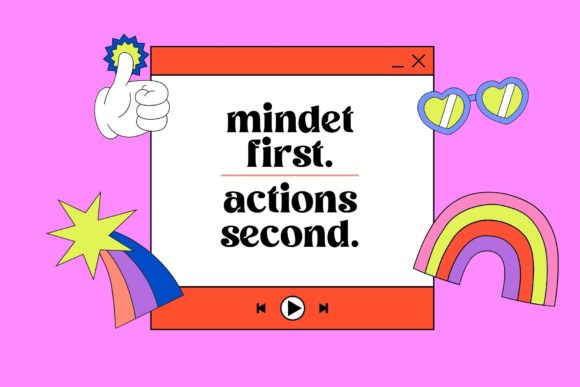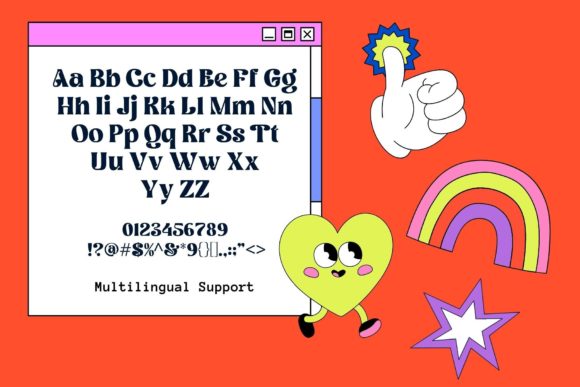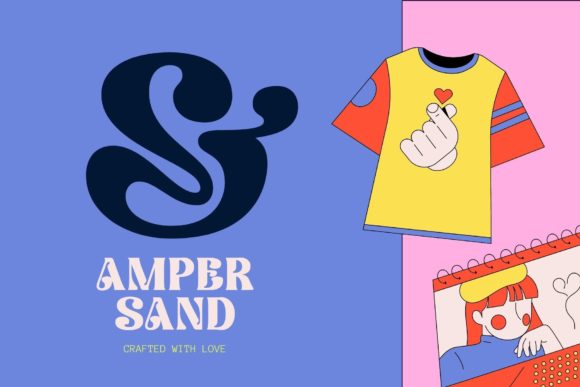
Introduction to Retro Boldy Font
Remember the thrill of digging through your grandma’s attic, uncovering a treasure trove of vintage trinkets and dusty old photographs? That’s the magic of stumbling upon the perfect design element – and for many designers, that element is the Retro Boldy Font.
This cool and vintage styled serif font has been making waves in the design community, thanks to its nostalgic charm and versatility. Whether you’re working on a product packaging project, a branding campaign, or a social media graphic, the Retro Boldy Font is the perfect addition to elevate your creative project. With its high-quality design and transparent background, it’s a valuable resource for designers looking to add a touch of retro flair to their work.
Key Features of Retro Boldy Font
- Retro Boldy Font is a high-quality, free download design resource perfect for creative projects.
- Features a unique, bold design with a transparent background, allowing for easy layering and customization.
- Retro Boldy Font is a versatile font suitable for a range of creative projects, from graphic design to web development.
- Includes a range of ligatures and alternates, adding an extra layer of personality to your creative project.
Honest Review: Retro Boldy Font
I recently stumbled upon the Retro Boldy Font, and I must say it’s a fantastic design resource for any creative project. The font is available as a free download, which is always a bonus, especially for freelancers or indie designers on a budget.
- ✨ High quality: The Retro Boldy Font is crisp, clear, and beautifully designed, making it perfect for any print or digital project.
- ✨ Versatile: This font can be used for a wide range of creative projects, from graphic design to web design, and even for personal projects like social media graphics.
- ✨ Transparent background: The font’s transparent background makes it easy to layer over images or other design elements, giving you more creative freedom.
- ⚠️ Limited character set: The Retro Boldy Font is only available in a limited character set, which may not be suitable for longer texts or complex designs.
- ⚠️ Not suitable for small text: Due to its bold design, the font may not be the best choice for small text sizes, as it can become difficult to read.
Overall, I’m impressed with the Retro Boldy Font, and I think it’s a great addition to any designer’s toolkit. While it has its limitations, the benefits far outweigh the drawbacks, making it a valuable design resource for any creative project.